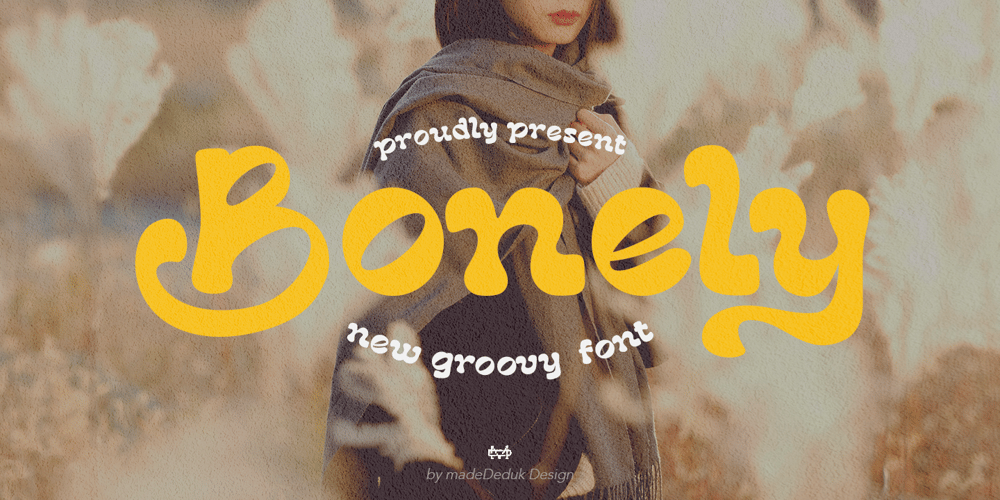
Bonely Font Family was designed by madededuk and published by madeDeduk. Bonely contains 1 styles and family package options. Bonely is a beautiful script font. Comes with retro style with much alternative and ligature. This font perfect for poster design, book covers, merchandise, fashion brands, advertising, magazines, album covers, wedding invitation and more.Feature Uppercase & Lowercase Number & Symbol International Glyphs Multilingual support Alternative Ligature Feel free to drop us a message any time and follow my shop for upcoming updates.Hope you enjoy it.